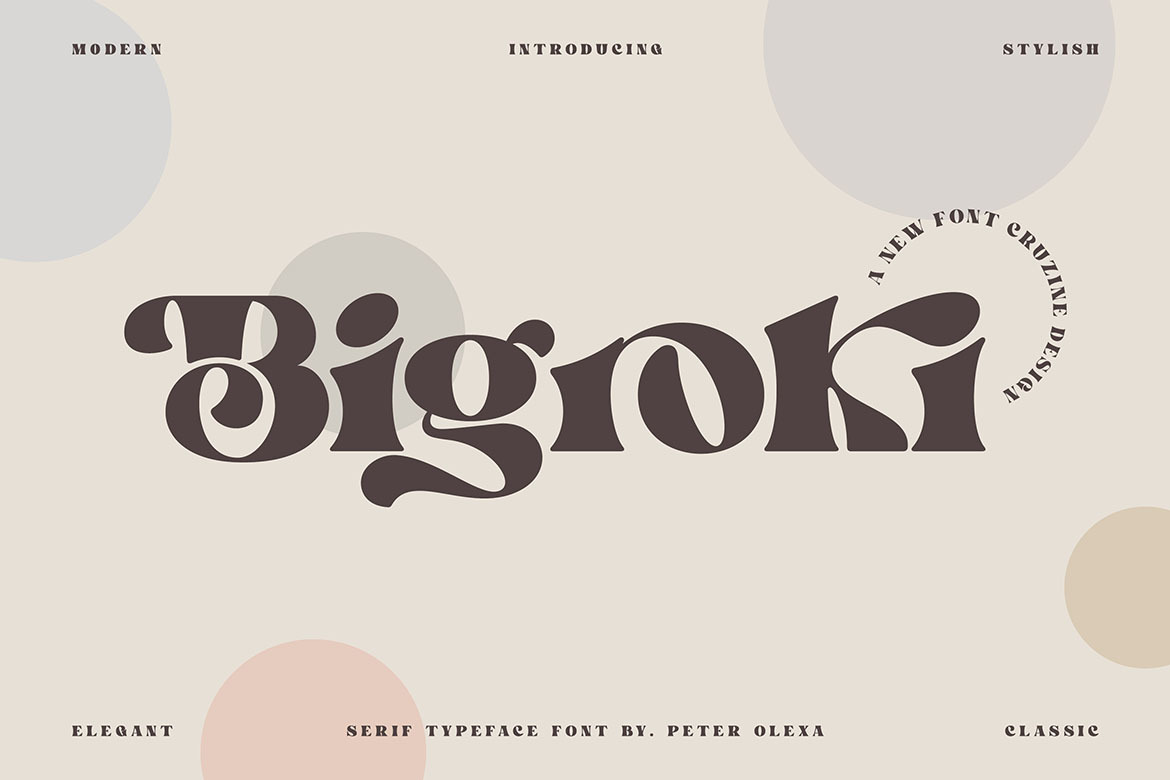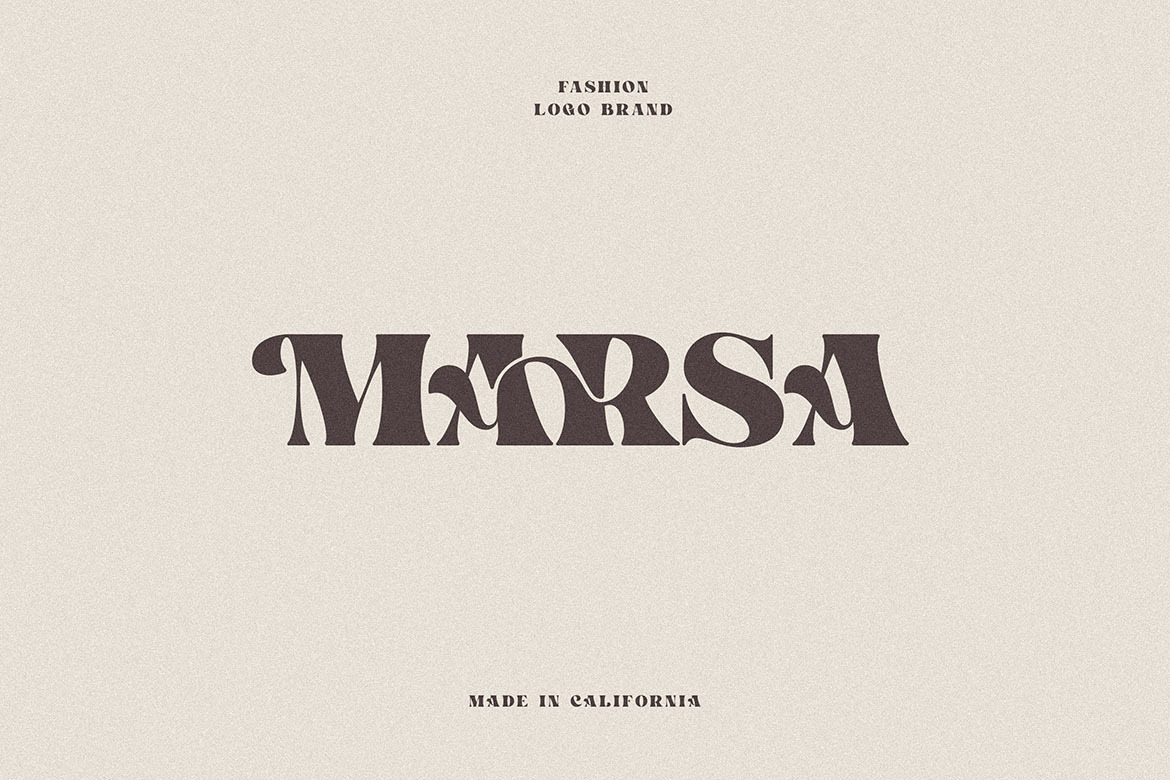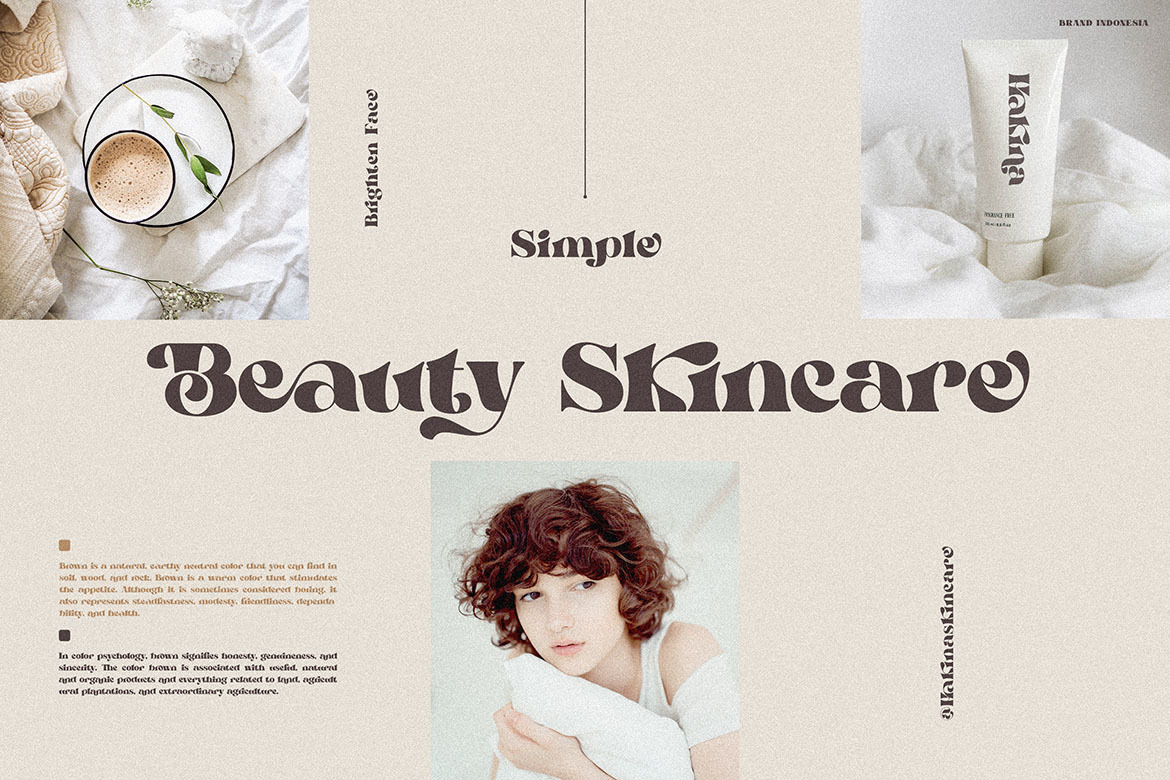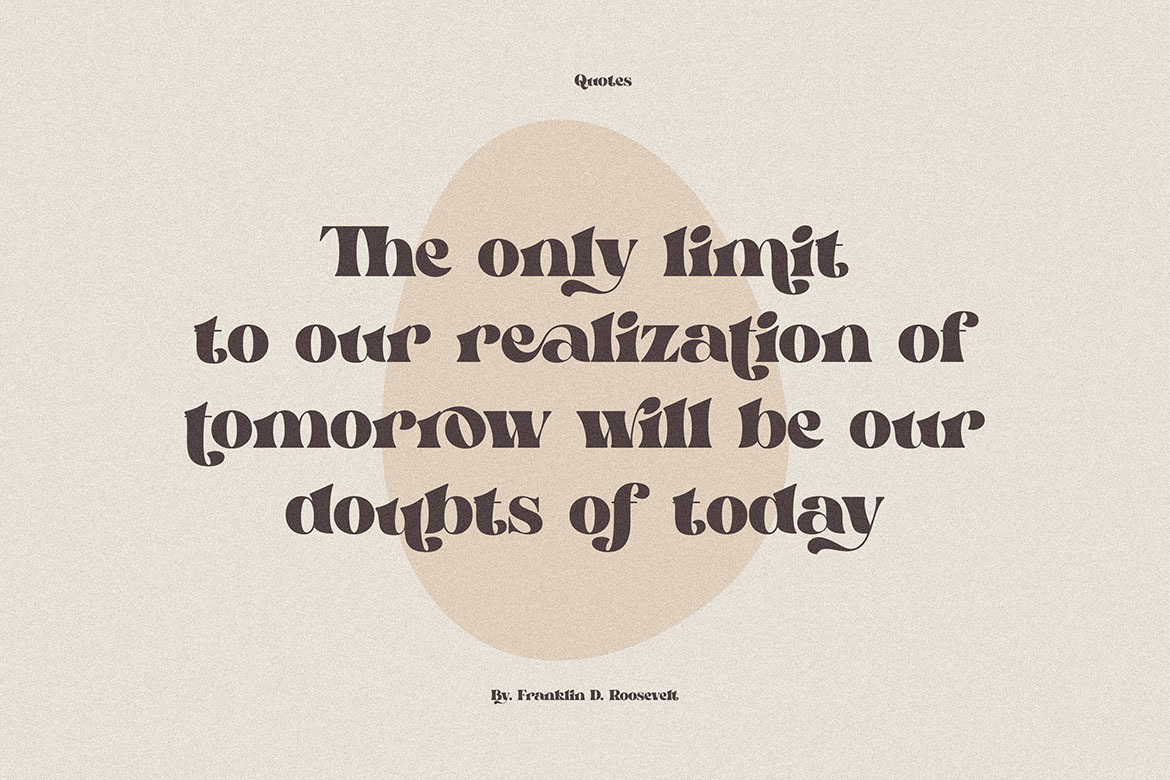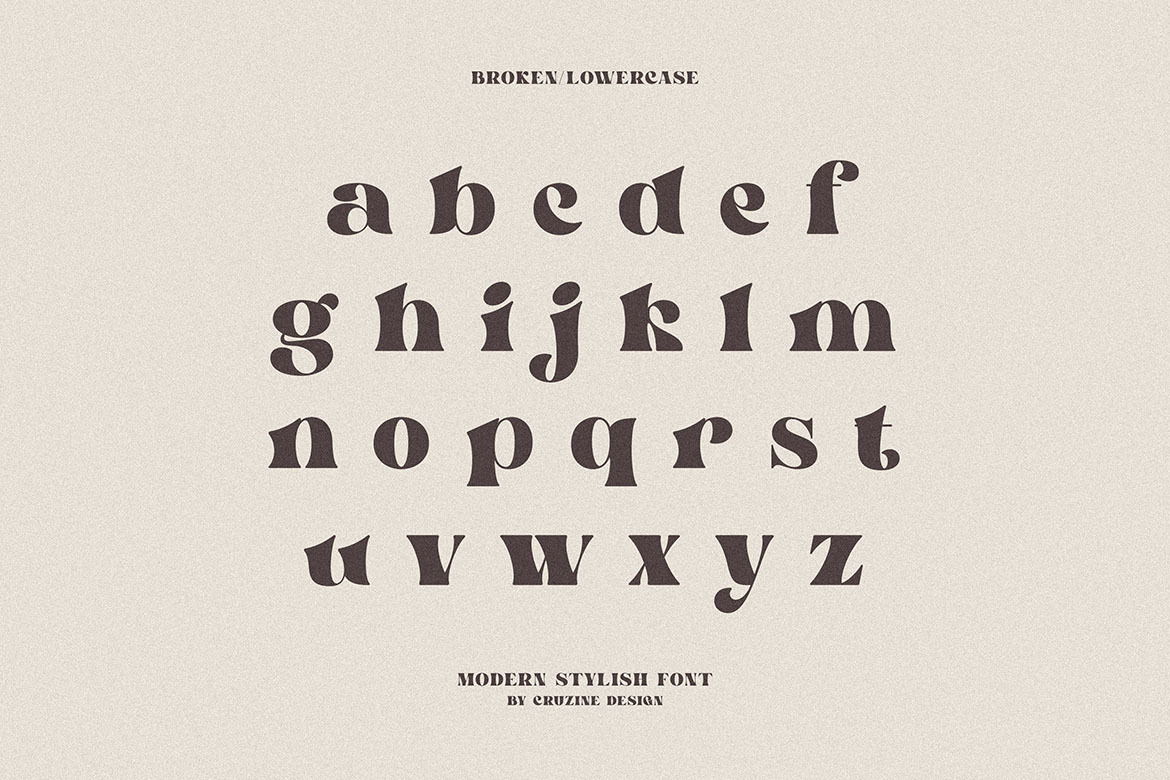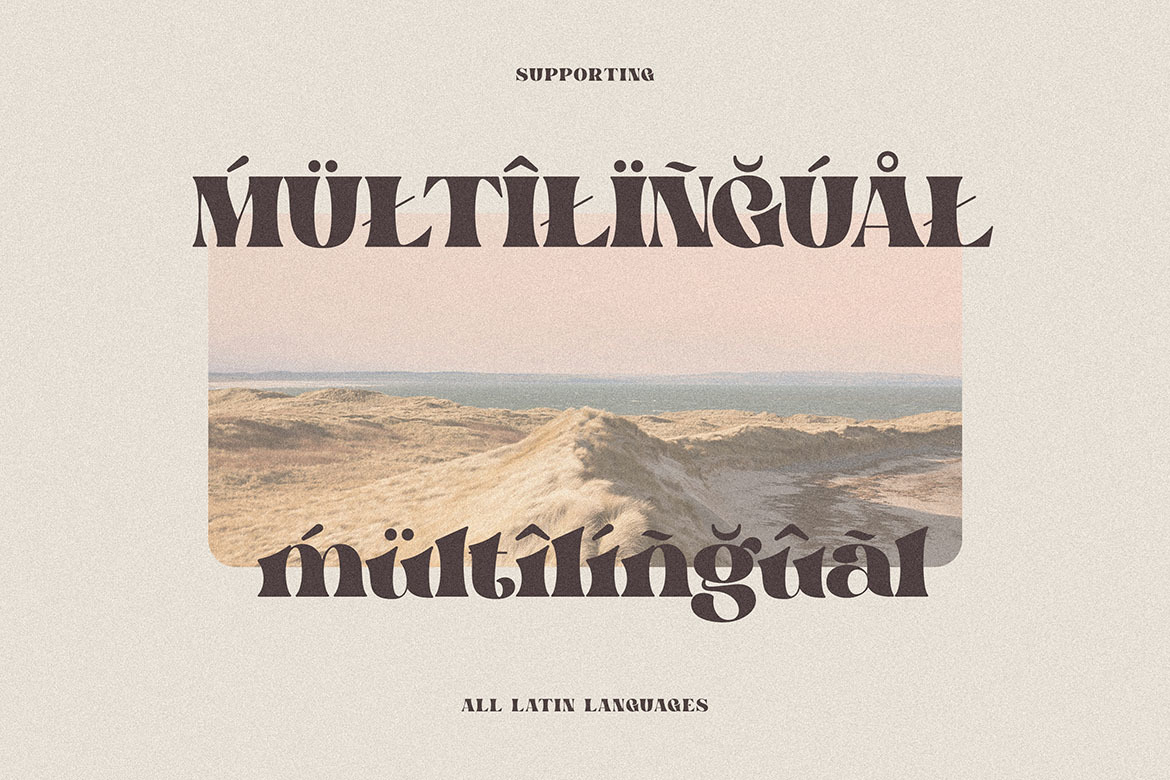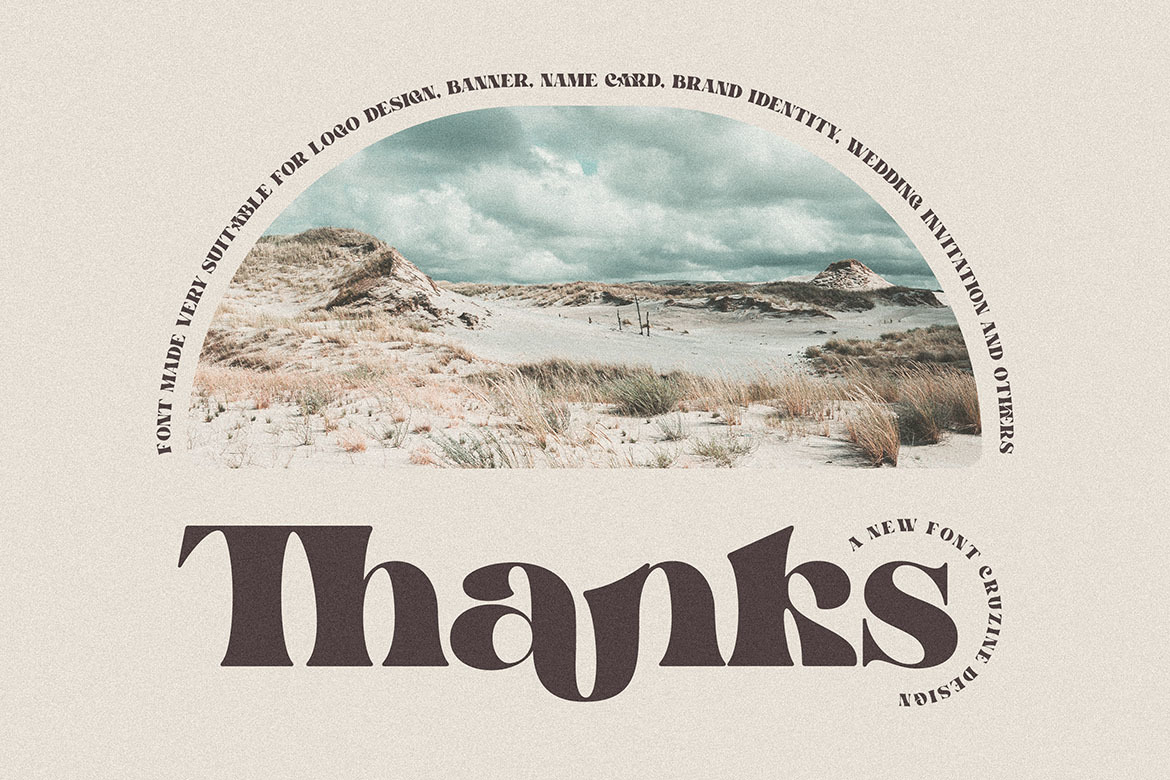
Bigroki - Bold Serif Font
Trendy, bold & modern style serif font for your fancy projects. Elegant, fashion and classic style on Broken font will be great for any branding project. Lot of alternates and ligatures will help you to create unique and original logo design or website header! Enjoy :)
-Multilingual support
-Lot of alternate characters
-Lot of ligatures
-Great for modern branding projects!